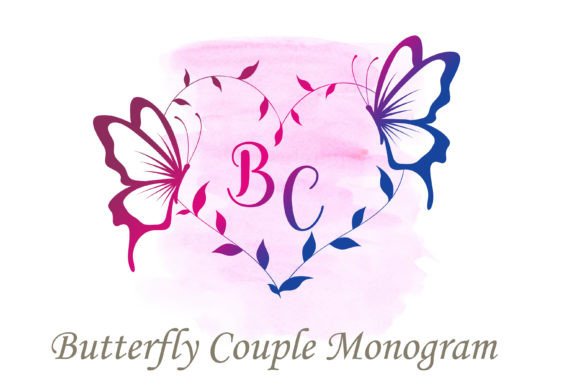
Introducing the Butterfly Couple Monogram Font, the perfect choice for those seeking a touch of elegance and charm in their designs. Created by the talented susecreative, this decorative font is a true work of art that will capture your heart.
With its beautiful ornaments and authentic feel, Butterfly Couple Monogram Font is more than just a font – it's a piece of magic that will transform your projects into unforgettable masterpieces. Let your creativity soar as you explore the endless possibilities this font offers.
Are you planning a dreamy wedding? Look no further, as Butterfly Couple Monogram Font is the ideal companion for designing stunning wedding invitations that will leave a lasting impression on your guests. Its graceful and romantic appeal will perfectly convey the love and joy of your special day.
Butterfly Couple Monogram Font is not limited to weddings alone. Unleash your imagination and use it to create captivating stationary art that will add a touch of sophistication to your correspondence. From elegant letterheads to personalized note cards, this font will make every word feel like a work of art.
In today's digital world, social media is the gateway to connecting with others. Make your posts stand out from the crowd with Butterfly Couple Monogram Font. Its eye-catching design will grab attention and ensure that your message is heard loud and clear. Let your creativity take flight as you design stunning graphics and share them with the world.
And let's not forget about greeting cards! Whether it's a birthday, anniversary, or any special occasion, Butterfly Couple Monogram Font will add a delightful touch to your heartfelt messages. Show your loved ones just how much they mean to you with a personalized card that showcases the beauty of this font.
In summary, Butterfly Couple Monogram Font is more than just a font – it's an opportunity to elevate your designs and leave a lasting impression. With its authentic feel, lovely ornaments, and endless possibilities, this font is the perfect choice for those seeking a touch of elegance and charm in their projects. So why wait? Download Butterfly Couple Monogram Font today and let your creativity take flight!